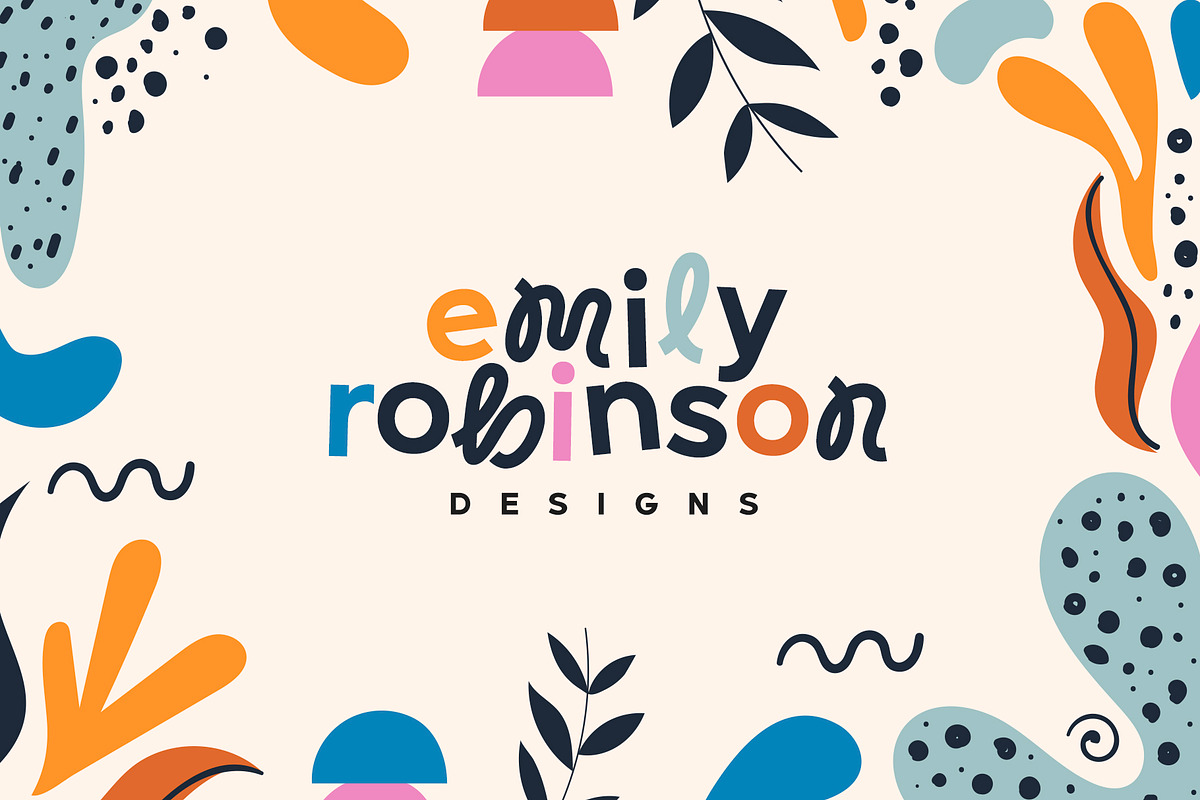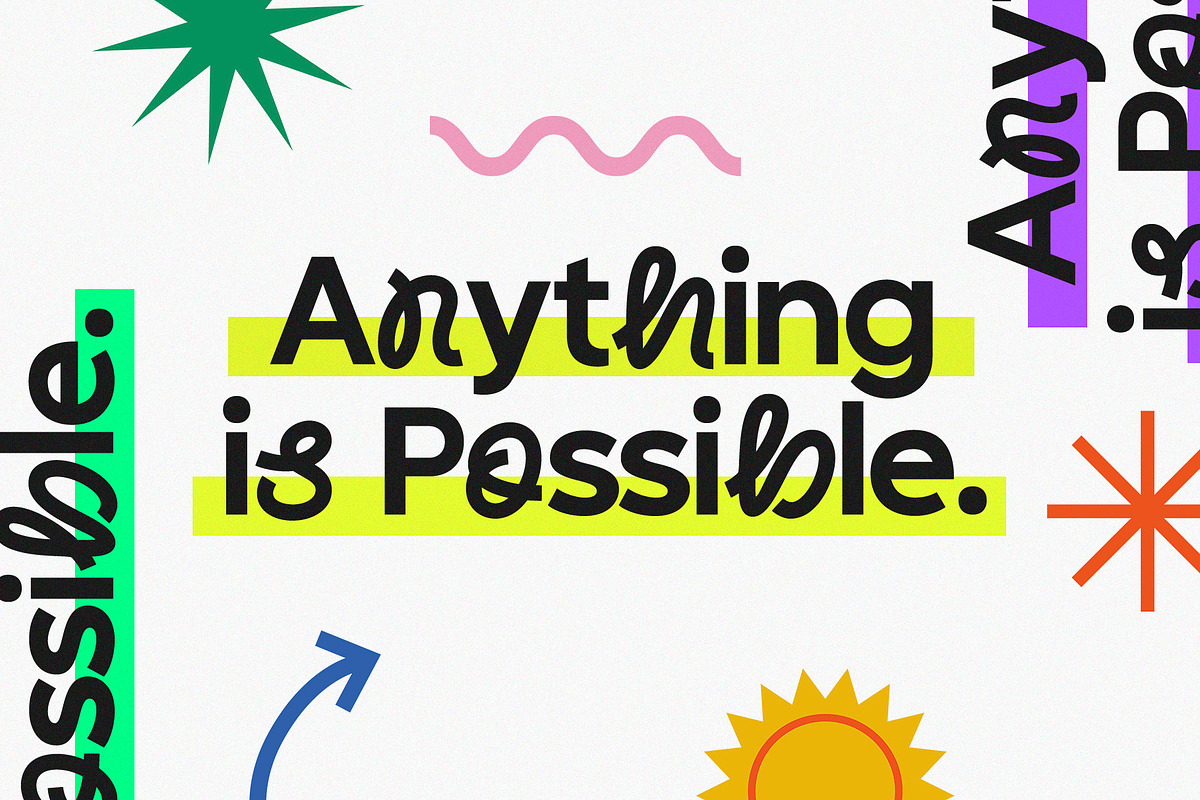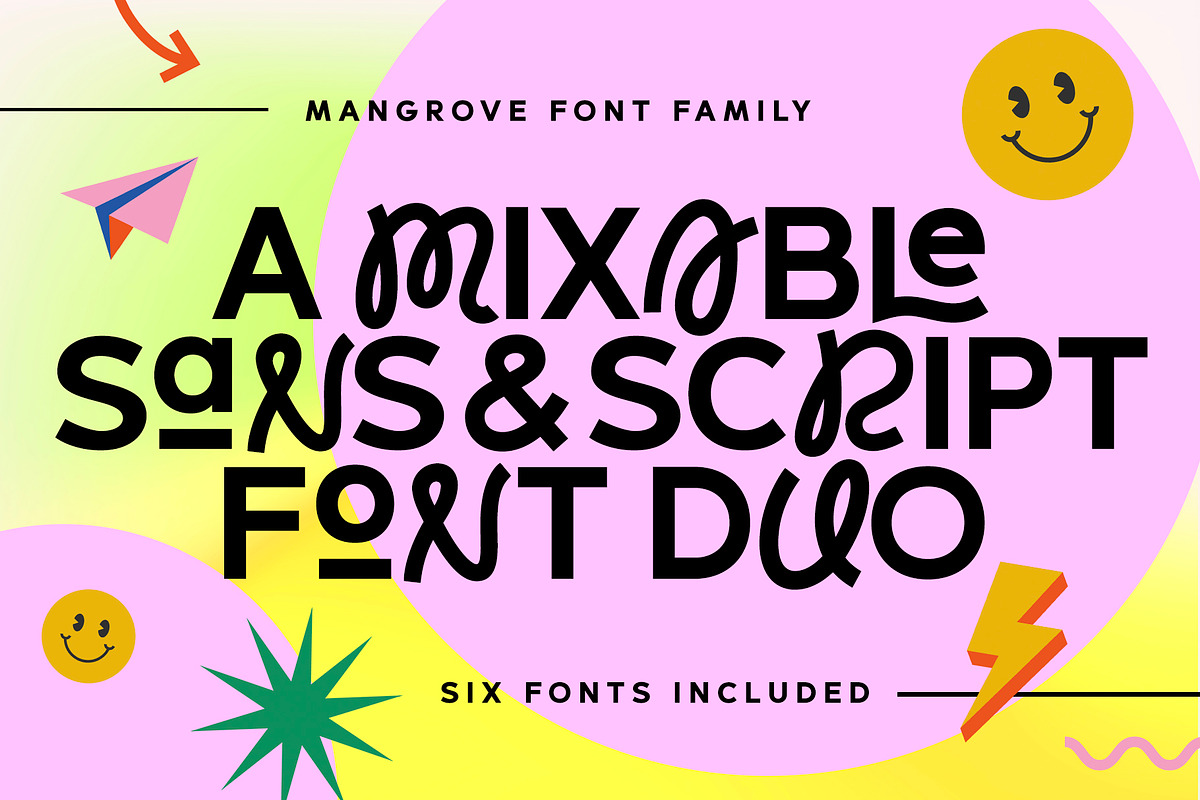
Bring your letters to life with the Mangrove Font Duo! A delightfully playful pairing of Sans and Script fonts. These perfectly balanced typefaces have been carefully designed to work not only as standalone fonts, but also to pair together effortlessly—delivering undeniably eye-catching typography bursting with character. Throw a script letter in the middle of the sans font, try the swooping sans ligatures or it’s uplifting small-caps, the possibilities are numerous. It’ll work in lowercase or uppercase, and with a choice of 3 weights per font, that’s six fonts in total for you to experiment with!